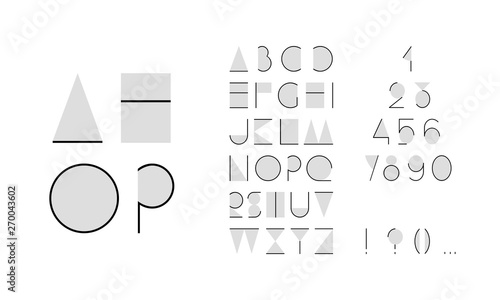
Abstract font. Vector abstract alphabet. Minimalist alphabet. Font design. Abc design. Geometric abstract technology font. Futuristic alphabet for logotype. Design letters and numbers logo.